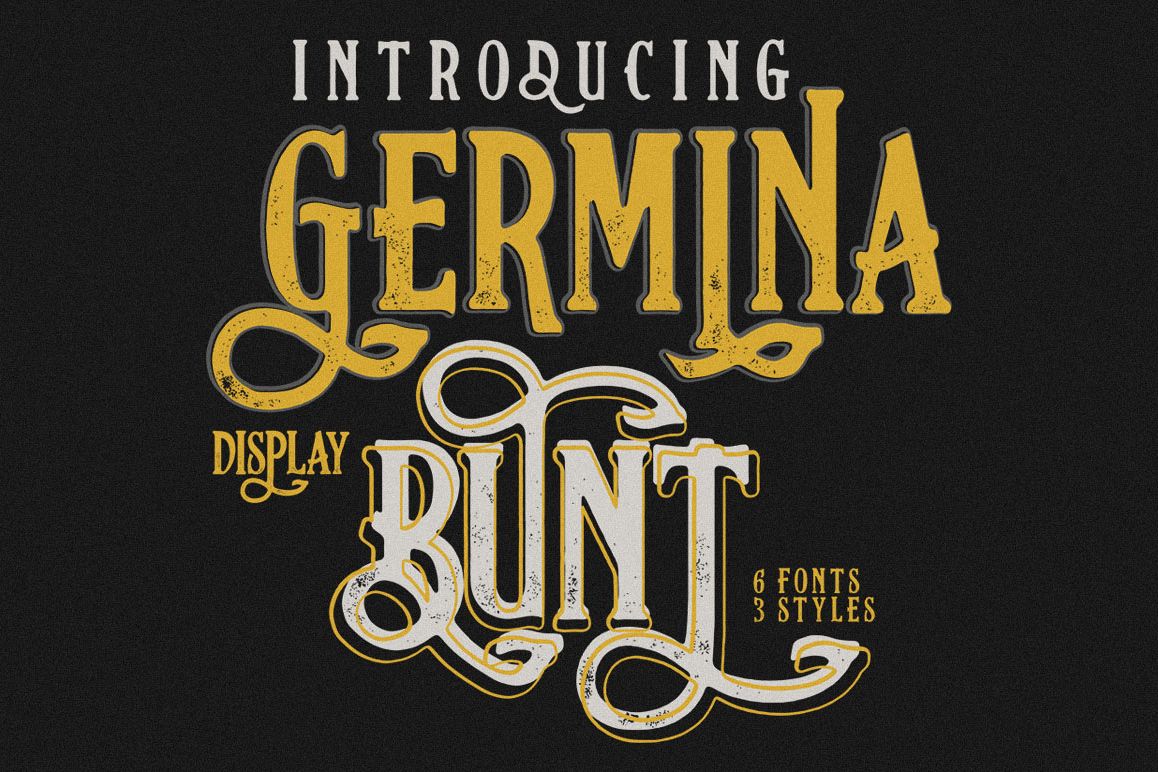
Germinabunt Fonts
Germinabunt A handwritten with alternative character. very suitable as to make a design choice for magazines, packaging, branding , website header, posters, greeting cards, letterhead, and many more other creative project.
- Germinabunt
- Germinabunt Rough
- Germinabunt Regular
- Germinabunt Regular (Rough)
- Germinabunt Outline
- Germinabunt Outline (rough)